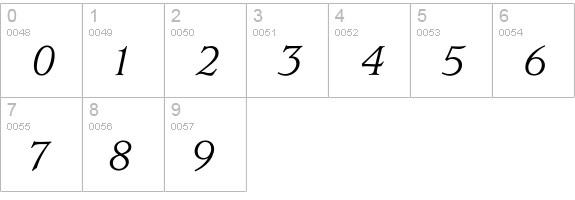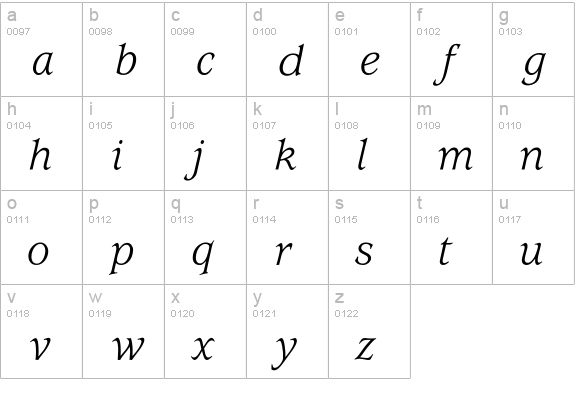
UsherwoodBookItalic Font Details
UsherwoodBookItalic font is a stunning and elegant typeface that exudes sophistication and charm. Its sleek and slanted design adds a touch of modernity to any project, making it perfect for both professional and creative endeavors. This font features beautifully curved letters with delicate strokes, creating a harmonious balance between legibility and artistic flair. The italicized style adds a sense of movement and grace, making UsherwoodBookItalic font stand out from the crowd. One of the best things about UsherwoodBookItalic font is that it is freely available to download at FontsMarket.com. This means that you can easily access this incredible font without any cost, making it an excellent choice for budget-conscious designers and individuals looking to enhance their creative projects. Whether you are designing a logo, creating a website, or crafting a unique piece of artwork, UsherwoodBookItalic font will elevate your work to new heights. Its versatility and timeless appeal make it suitable for a wide range of applications, from branding and advertising to invitations and packaging designs. Don't miss out on the opportunity to enhance your designs with this exceptional font. Download UsherwoodBookItalic font from FontsMarket.com today and experience the beauty and elegance it brings to your projects.